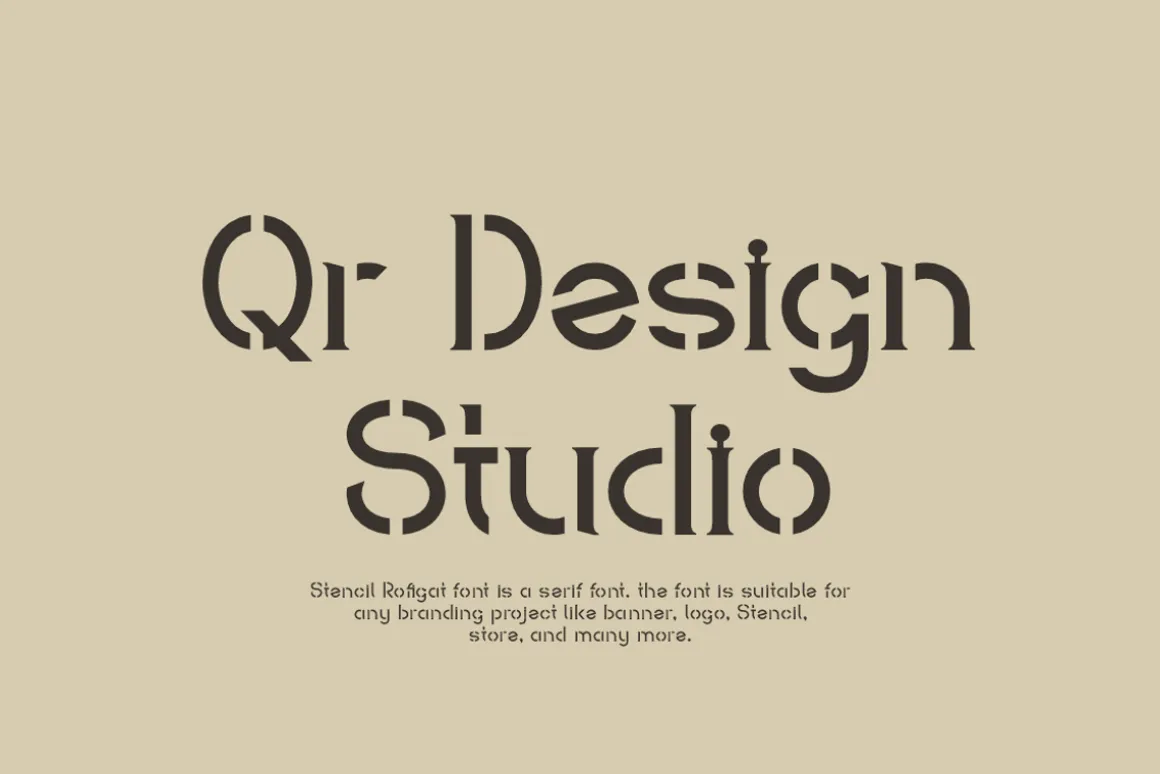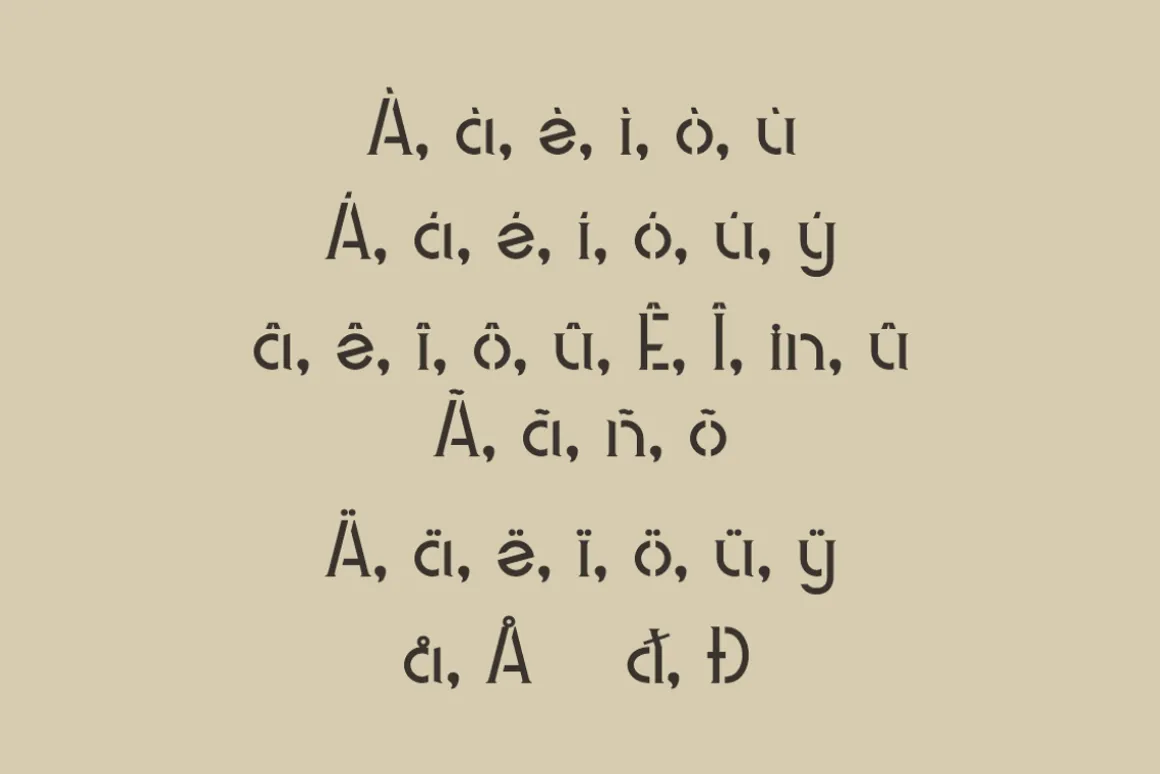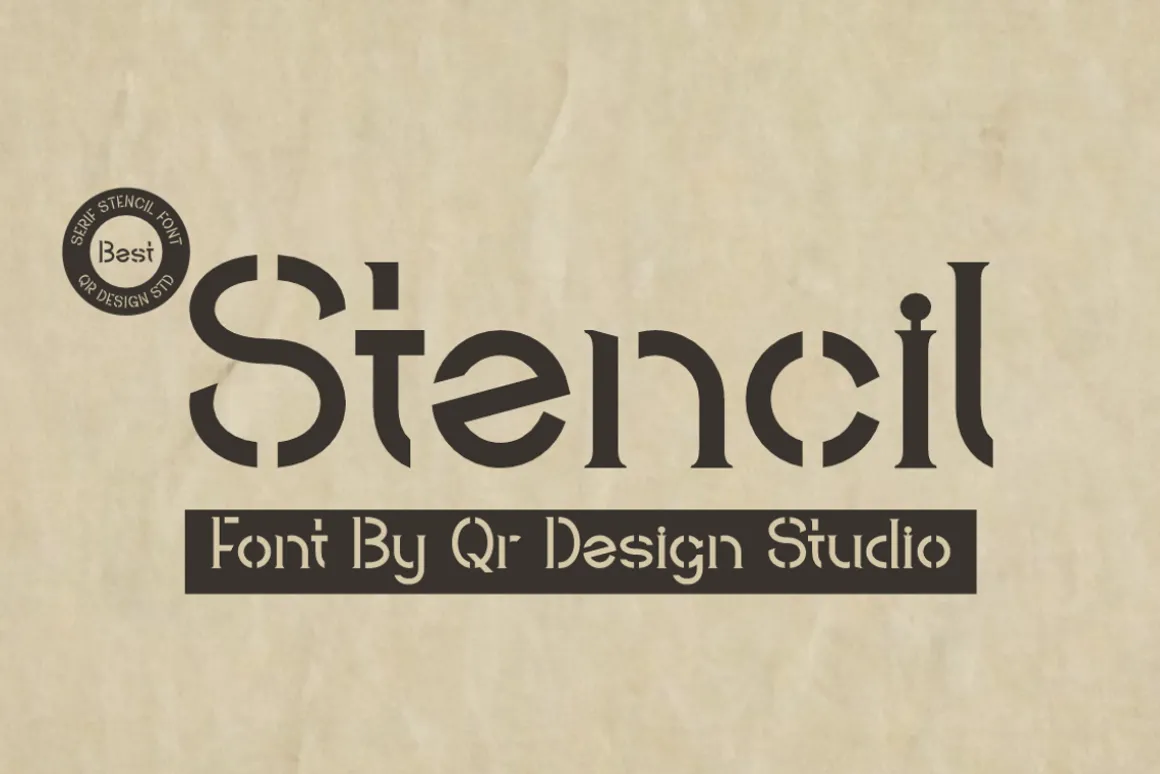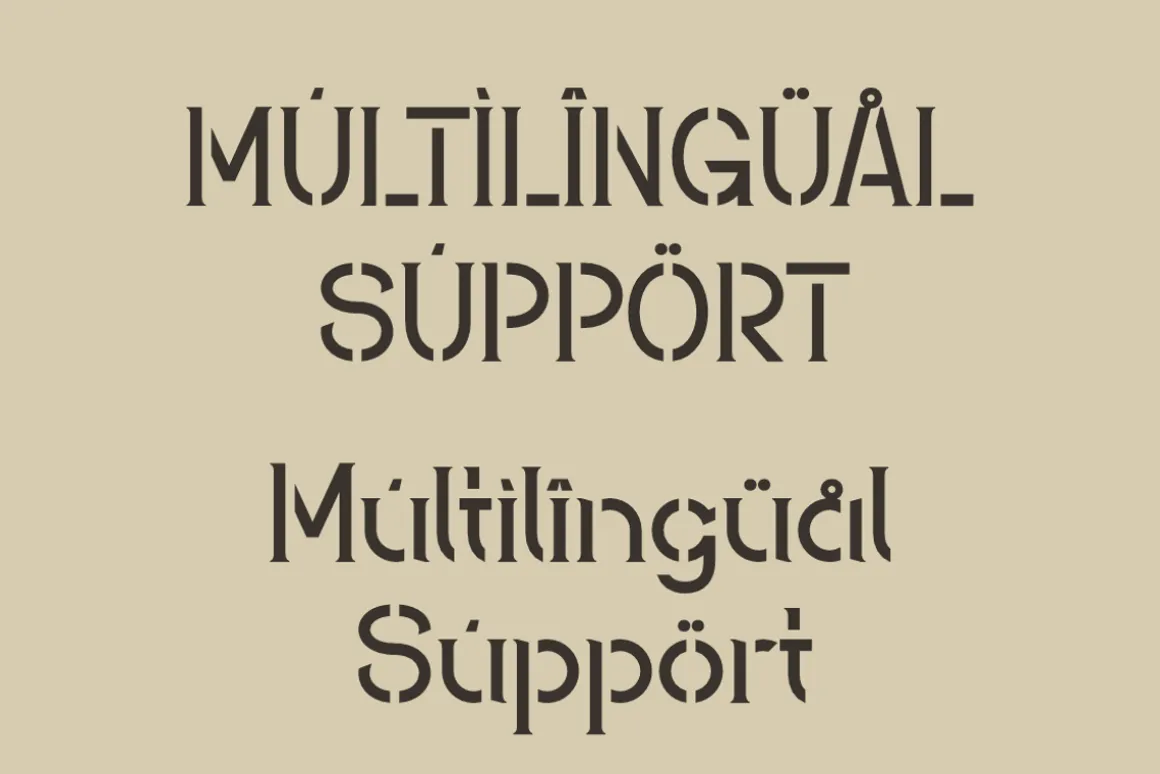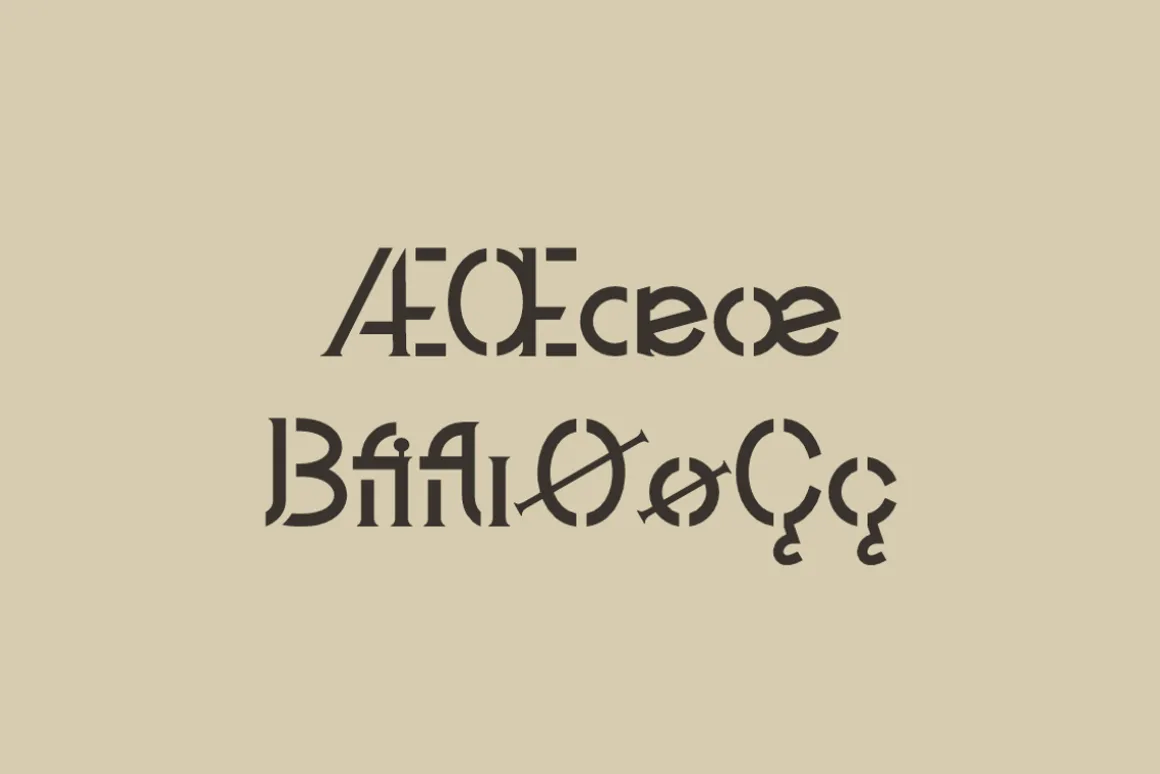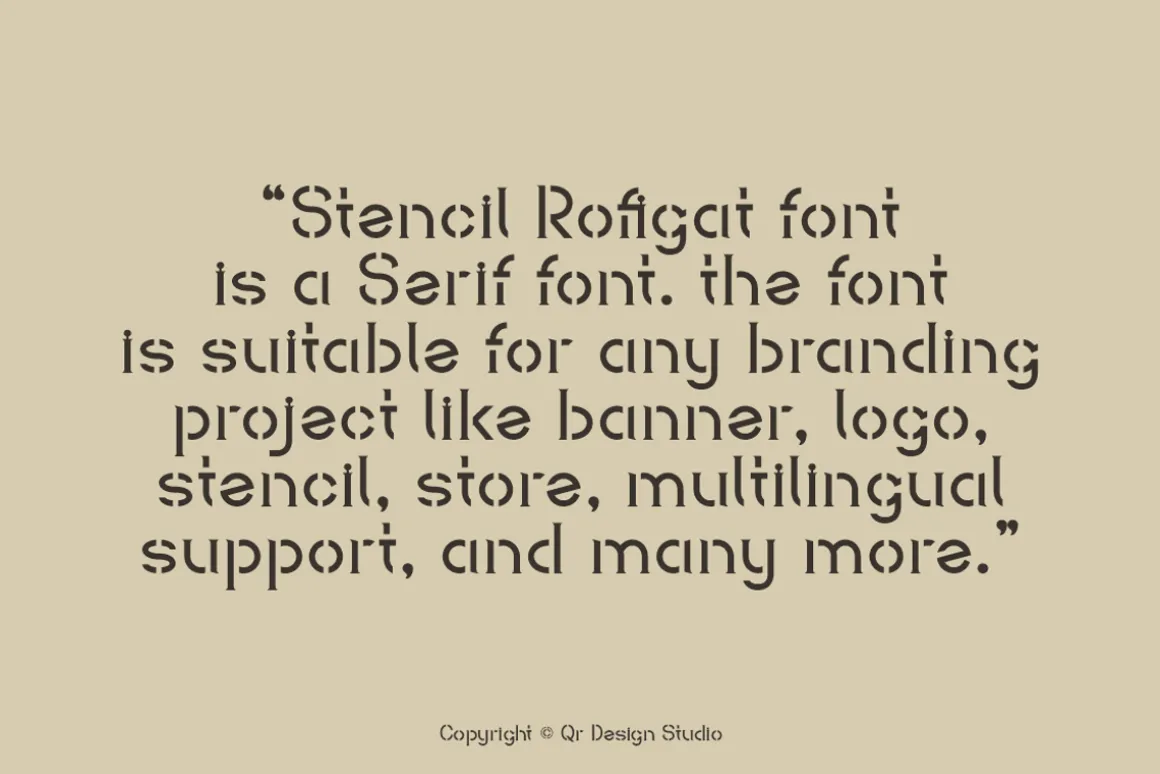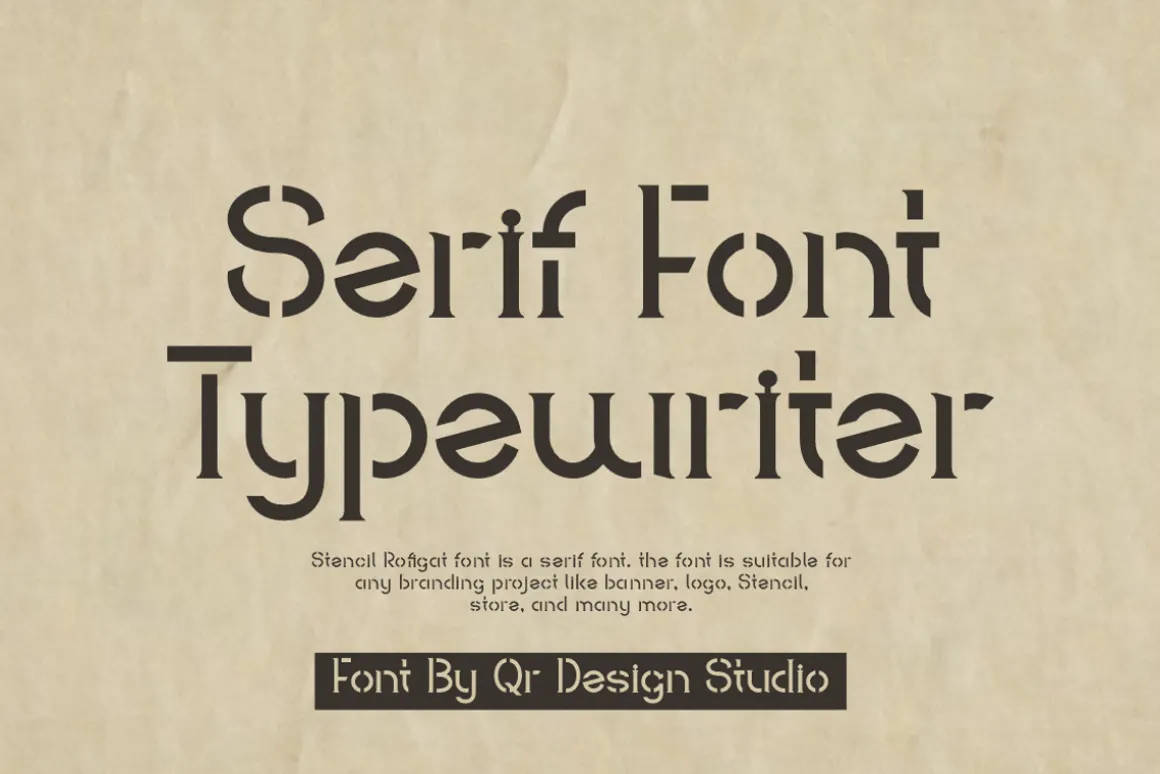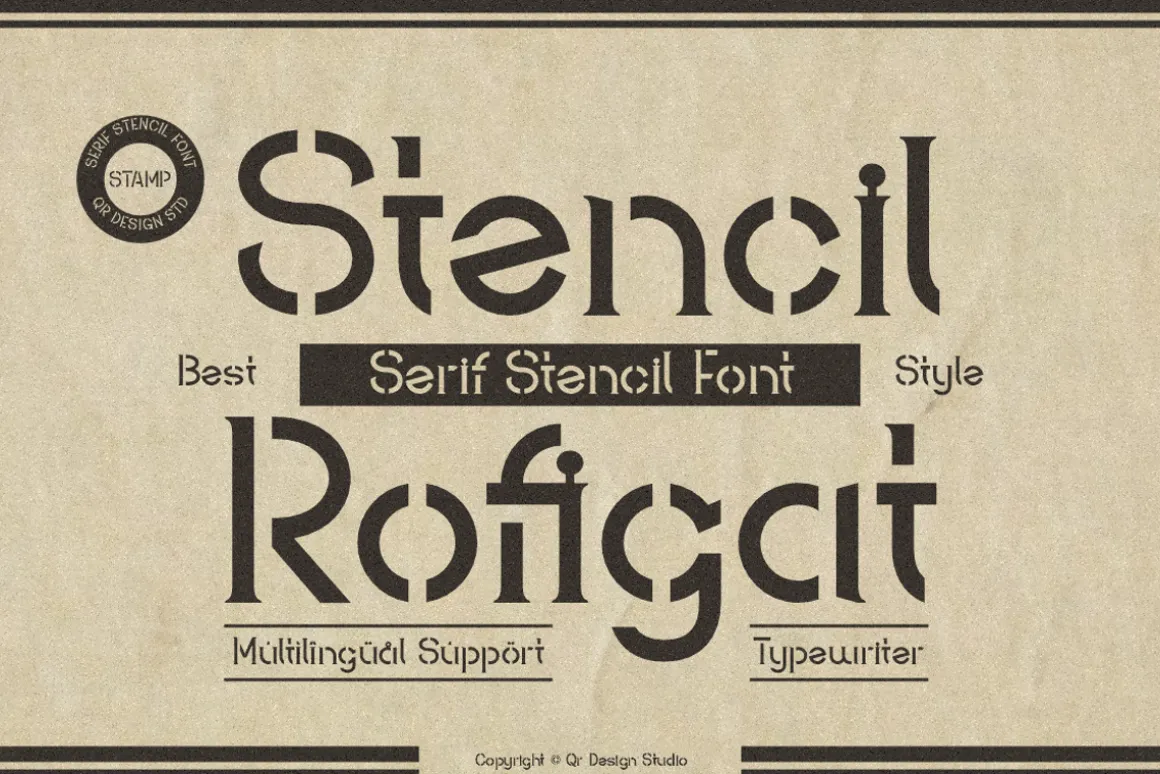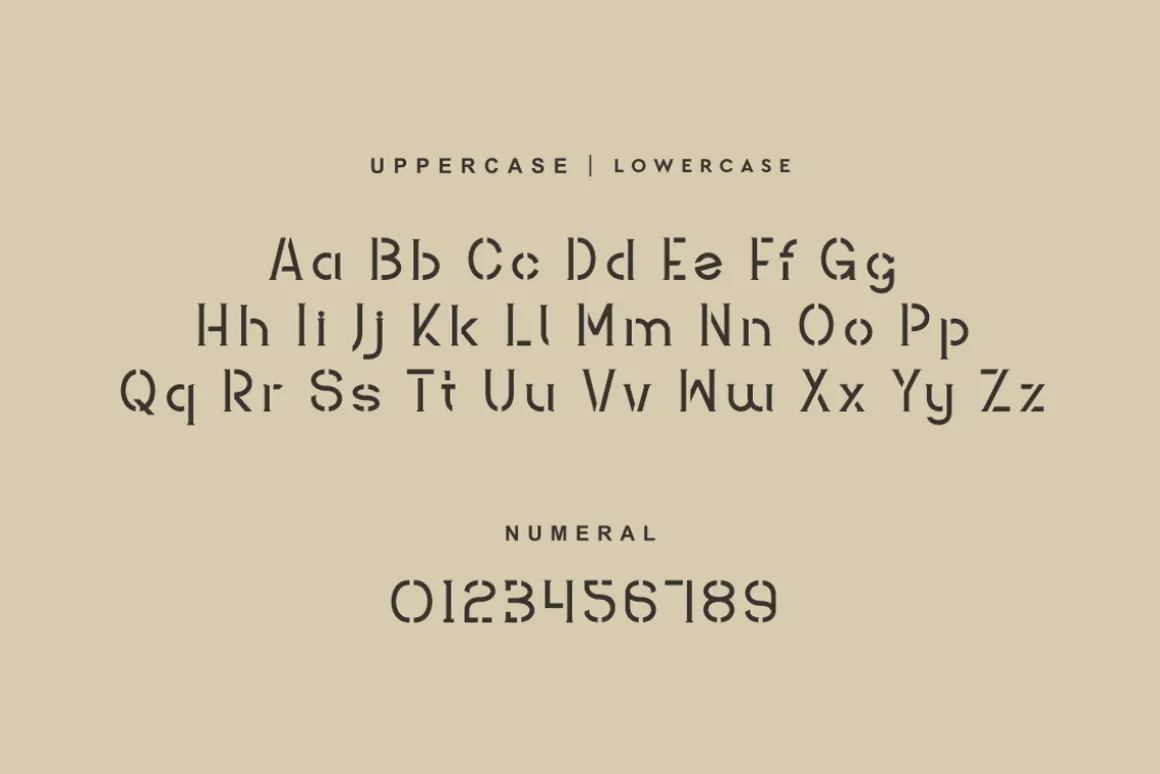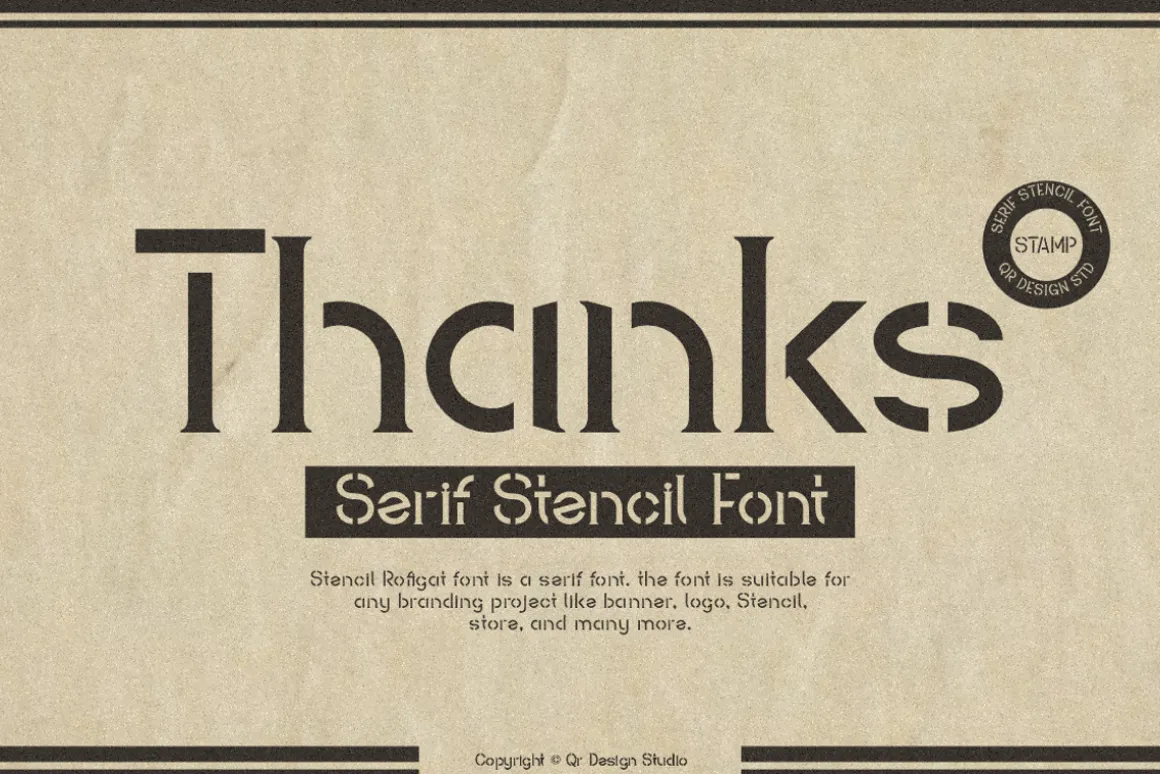
Stencil Rofigat Font is a typewriter and authentic display font.The font is suitable for any branding project like poster, logo, typewriter, and many more.Outstanding in a wide range of contexts.